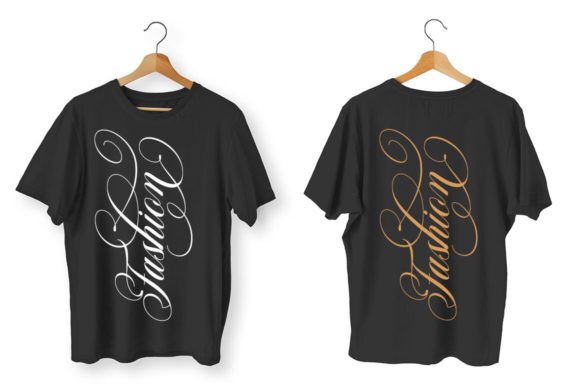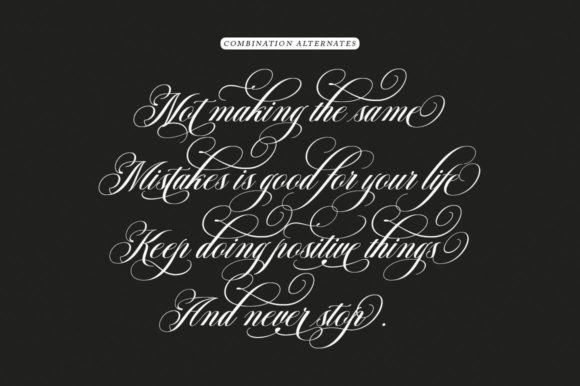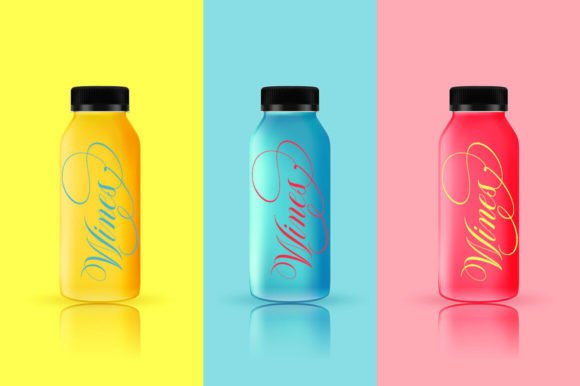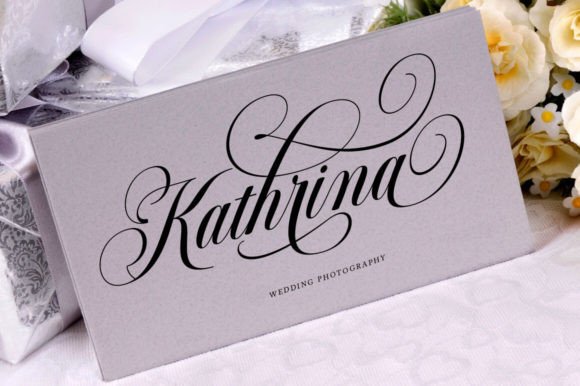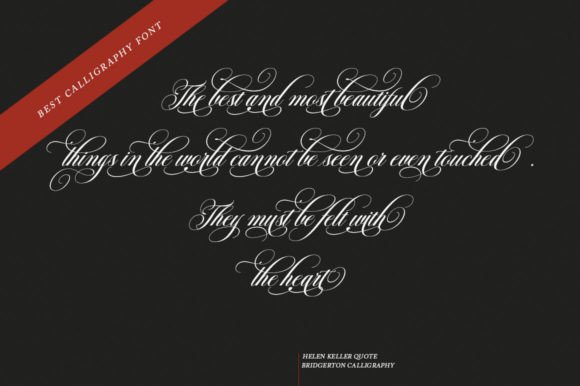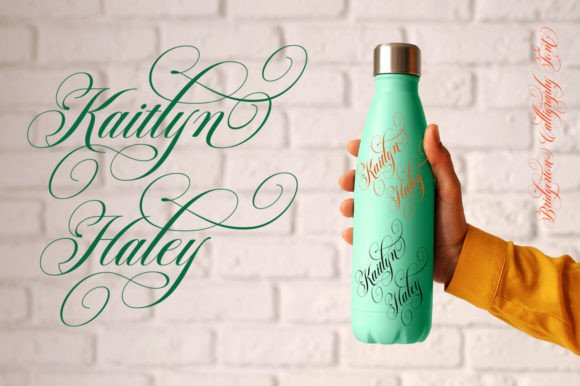
Bridgerton Font: Elevate Your Designs with Elegance and Sophistication
The Bridgerton Script font has taken the design world by storm, and for good reason. This exquisite calligraphy font is a masterful blend of classic decorative copper script and modern touches, making it the perfect addition to any design project. With its smooth, clean, and feminine lines, Bridgerton Script is sure to bring a touch of elegance and sophistication to your work.
The Characteristics of Bridgerton Script Font
Bridgerton Script Font is a true showstopper, boasting a range of characteristics that make it a standout in the world of typography. Some of its most notable features include:
- Exquisite changing characters: Each letter is carefully crafted to provide a unique and luxurious feel, making every word a work of art.
- Classic decorative copper script: Inspired by traditional copperplate script, Bridgerton Script brings a touch of vintage glamour to your designs.
- Modern touches: A subtle injection of modernity ensures that the font remains fresh and relevant, perfect for contemporary design projects.
- Smooth and clean lines: The font’s sleek lines make it easy to read and visually stunning, adding a level of sophistication to any text.
- Feminine and sensual: Bridgerton Script exudes a sense of femininity and sensuality, making it perfect for designs that require a touch of elegance and allure.
Perfect for a Range of Design Applications
Bridgerton Script Font is incredibly versatile, making it suitable for a wide range of design applications. Some of the many ways you can use this beautiful font include:
- Invitations: Whether it’s a wedding, birthday, or formal event, Bridgerton Script is the perfect choice for creating stunning invitations.
- Labels and packaging: Add a touch of luxury to your product labels and packaging with this elegant font.
- Restaurant menus: Elevate your restaurant’s menu with a sophisticated and eye-catching font.
- Logos and branding: Create a lasting impression with a custom logo that showcases your brand’s personality and style.
- Fashion and beauty: Perfect for fashion and beauty brands, Bridgerton Script adds a touch of glamour and sophistication to any design.
- Stationery and greeting cards: Create beautiful stationery, greeting cards, and wedding cards that are sure to impress.
- Alternate characters: Switch between different character variations to add visual interest to your designs.
- Ligatures: Create beautiful connections between letters for a more fluid and natural look.
Tips for Using Bridgerton Script Font
To get the most out of Bridgerton Script Font, here are a few tips to keep in mind:
- Experiment with different sizes: Bridgerton Script looks stunning in a range of sizes, from small and delicate to large and dramatic.
- Play with character variations: Take advantage of the font’s alternate characters and ligatures to add visual interest to your designs.
- Pair with complementary fonts: Combine Bridgerton Script with other fonts to create a unique and eye-catching typography combination.
Bridgerton Script Font is a true gem in the world of typography, offering a unique blend of classic elegance and modern sophistication. With its exquisite changing characters, smooth lines, and luxurious feel, this font is perfect for designers and crafters looking to elevate their work. Whether you’re creating invitations, labels, or branding materials, Bridgerton Script is sure to bring a touch of glamour and sophistication to your designs.